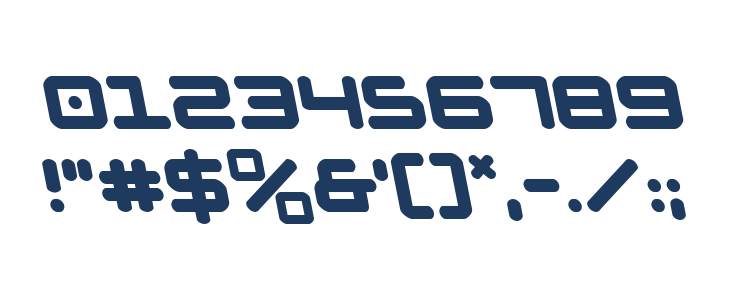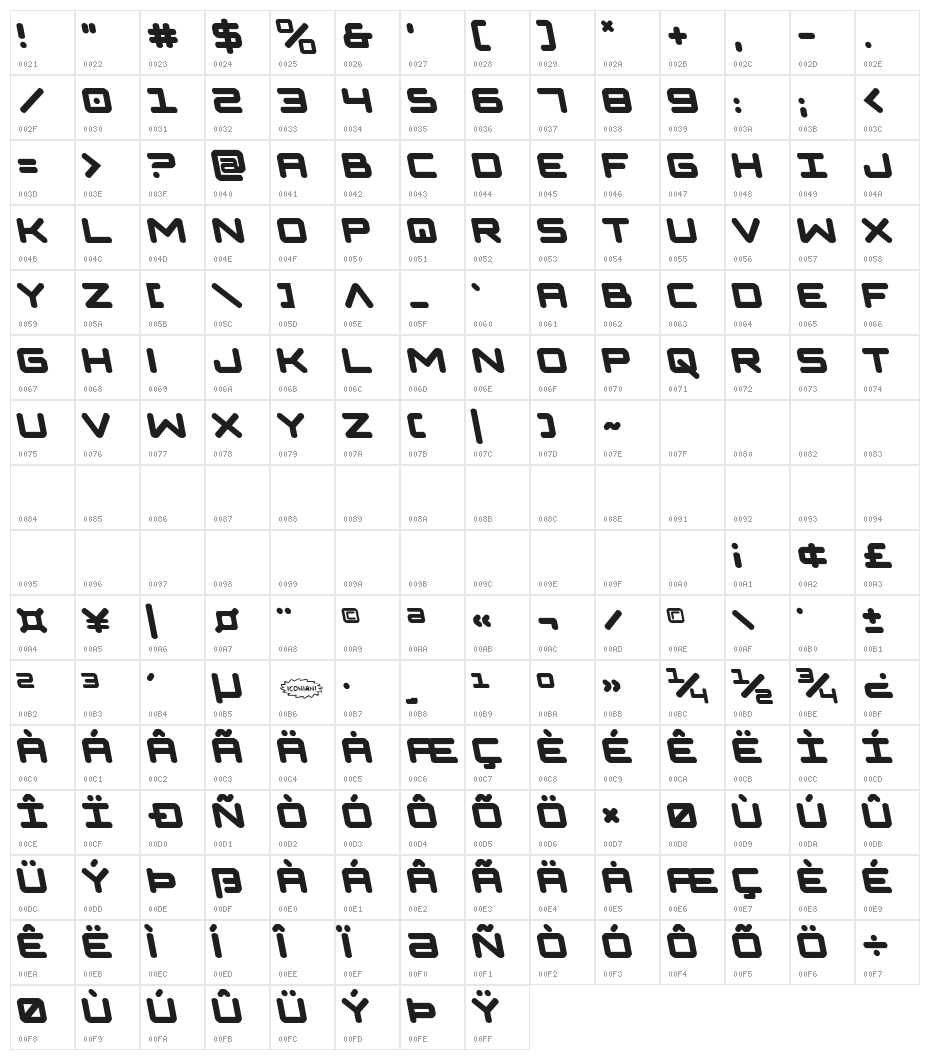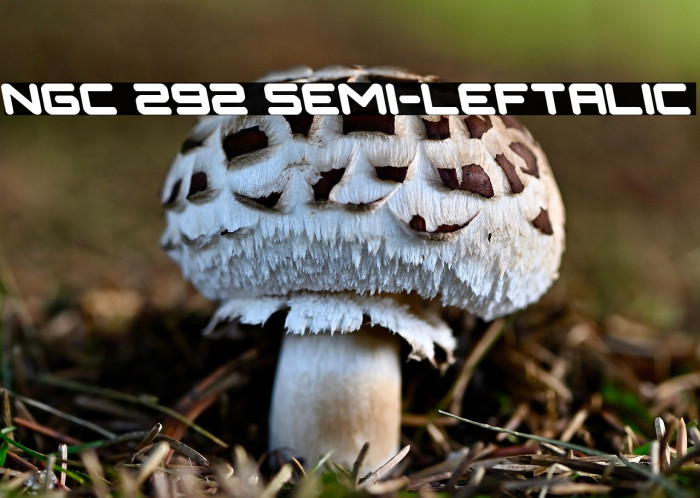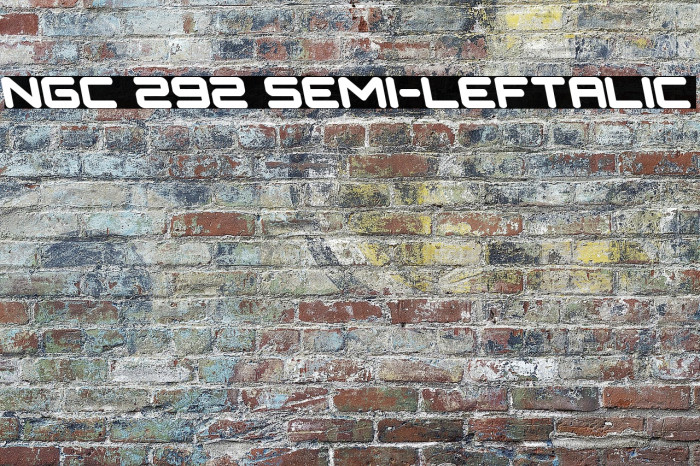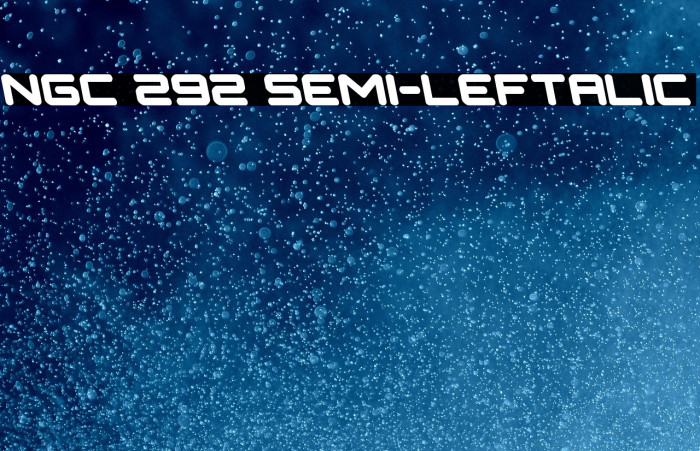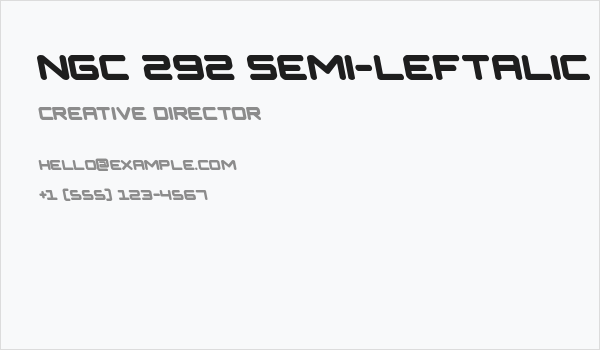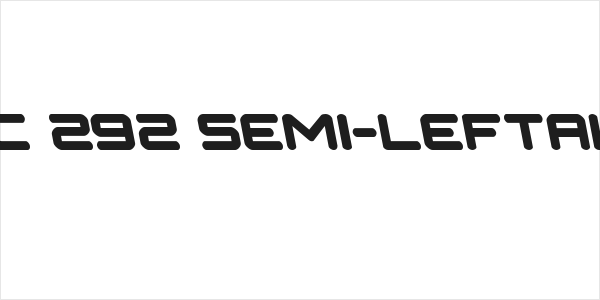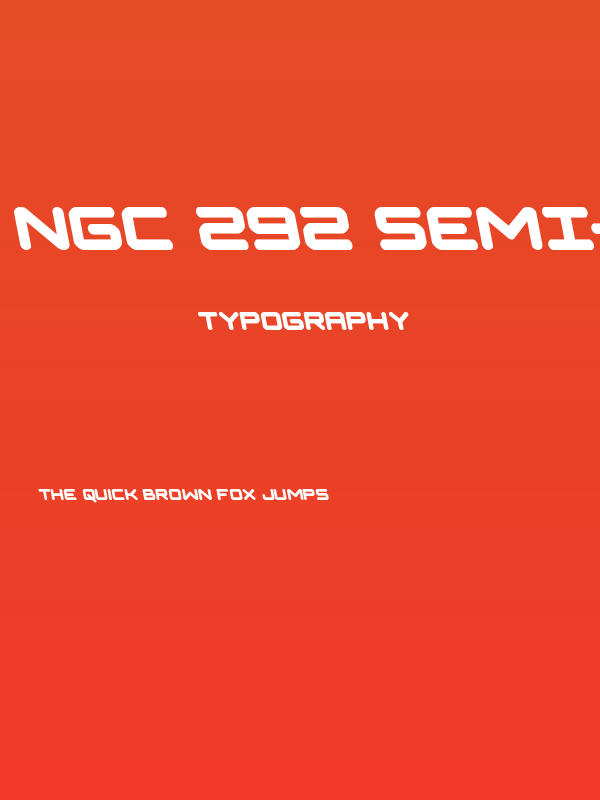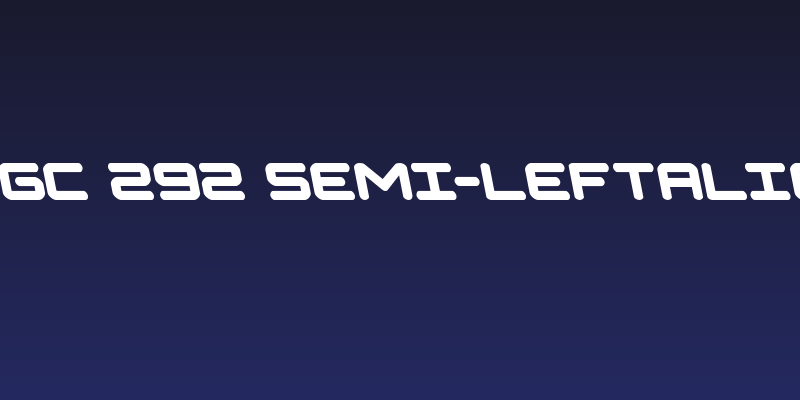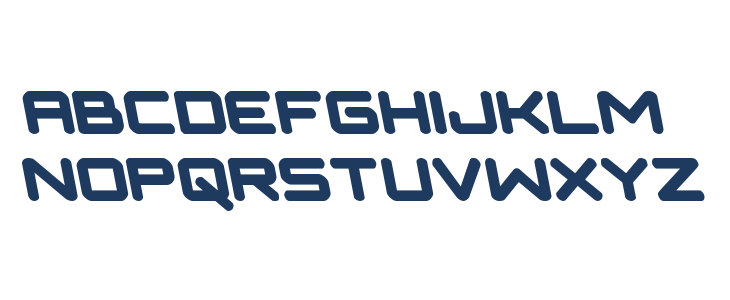
NGC 292 Semi-Leftalic Font
NGC 292 Semi-Leftalic Description
This font features a modern, geometric style with a slightly italicized slant, giving it a dynamic and forward-moving appearance. The characters are bold and rounded, with consistent stroke thickness that provides a uniform look across all letters and numbers. The design incorporates a futuristic aesthetic, making it suitable for tech-related projects. The spacing between characters is normal, ensuring readability while maintaining a compact appearance. Special characters are designed with the same bold, rounded style, ensuring consistency throughout the font.
| Use Case | Logos, Headlines, Tech Interfaces |
| Proposed Projects | Ideal for technology branding, futuristic designs, video game interfaces, and modern advertising. |